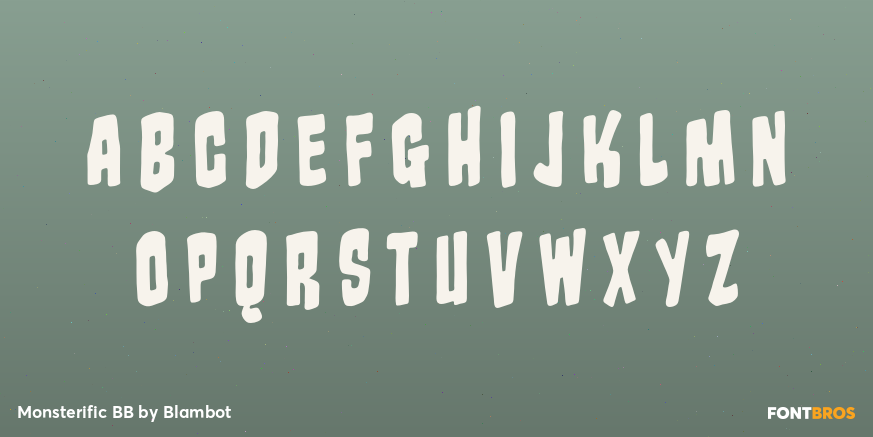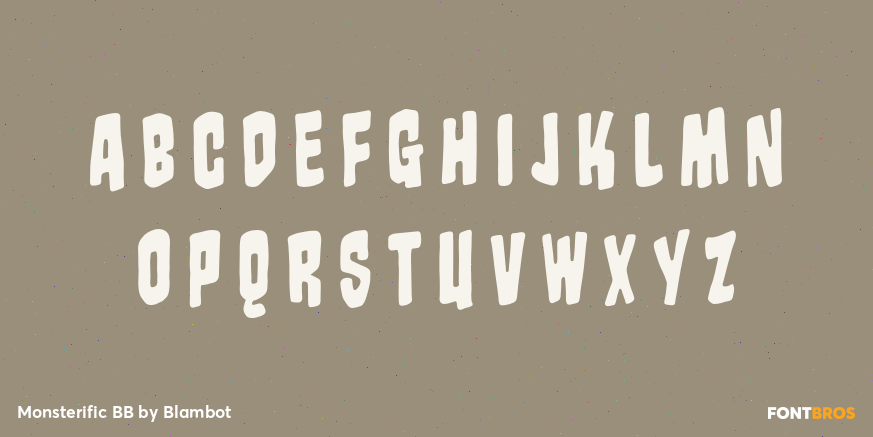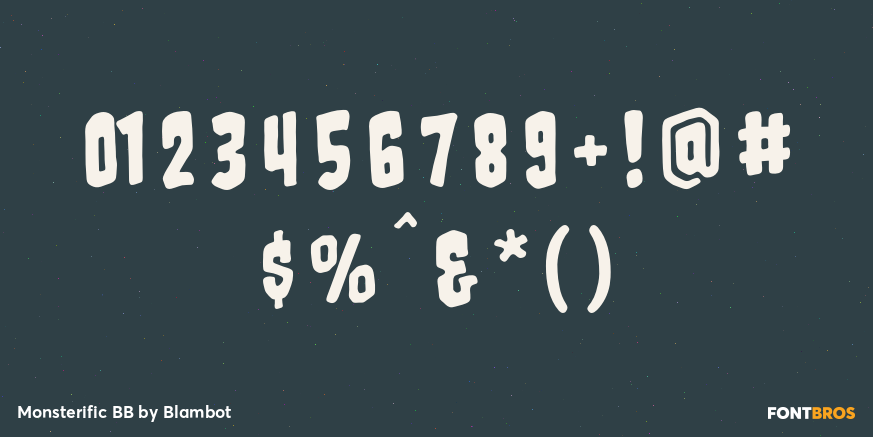
Monsterific BB
Font Family by Blambot
Monsterific BB was inspired by classic 70s horror magazine titles, and features a large compliment of European characters and over 160 Opentype Autoligatures! Perfect for Halloween or any spooky time of the year!